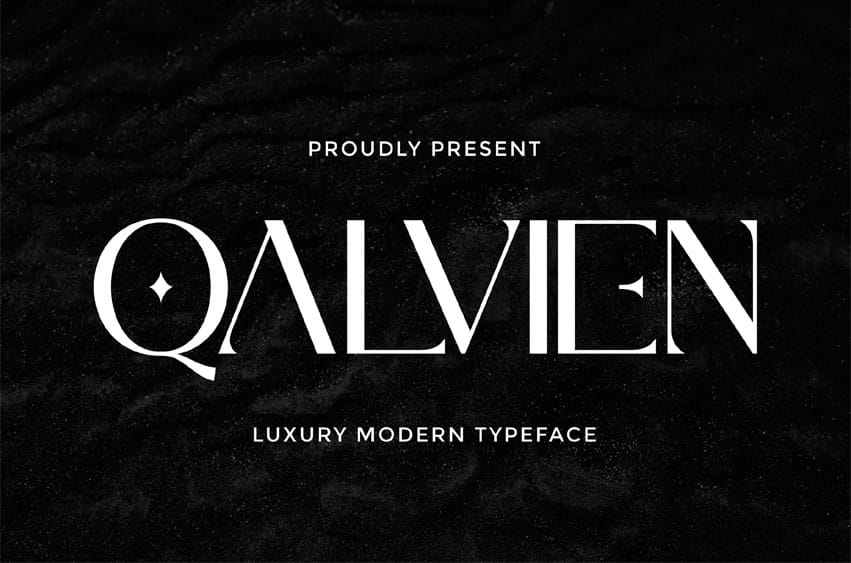
Qalvien Font is a refined luxury typeface crafted to elevate premium branding and high-end visual identities. Designed with smooth curves, balanced proportions, and a sophisticated modern aesthetic, this font delivers a polished look that enhances any creative project with timeless elegance.
Perfectly suited for luxury branding, editorial design, premium packaging, fashion campaigns, cosmetic brands, and modern logos, Qalvien Modern combines a minimalist structure with a graceful high-class personality. Every letterform is shaped to create a clean yet distinctive presence, making your design feel instantly upscale and professionally built.
Bring a touch of modern luxury to your creative toolkit — Qalvien Modern is crafted to help your design speak with confidence, exclusivity, and sophistication.